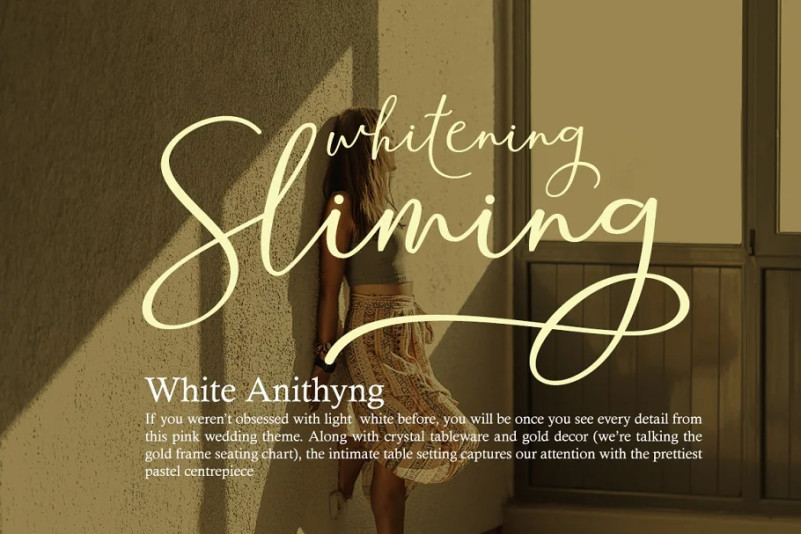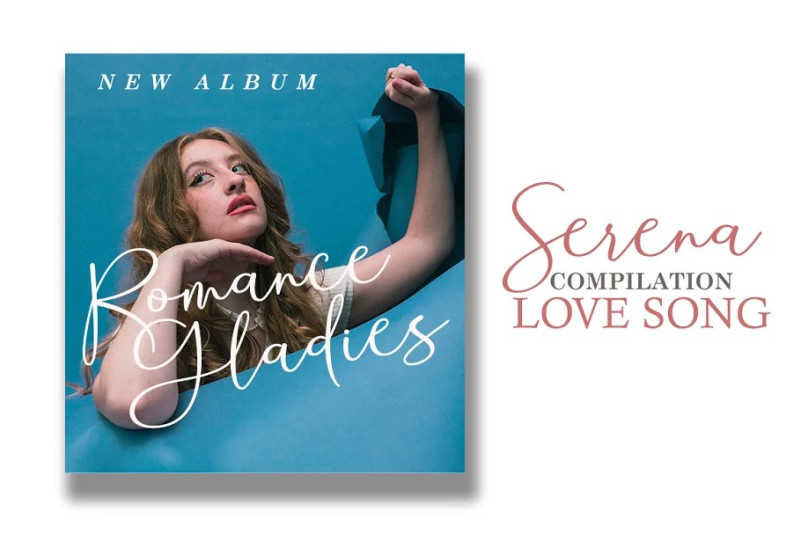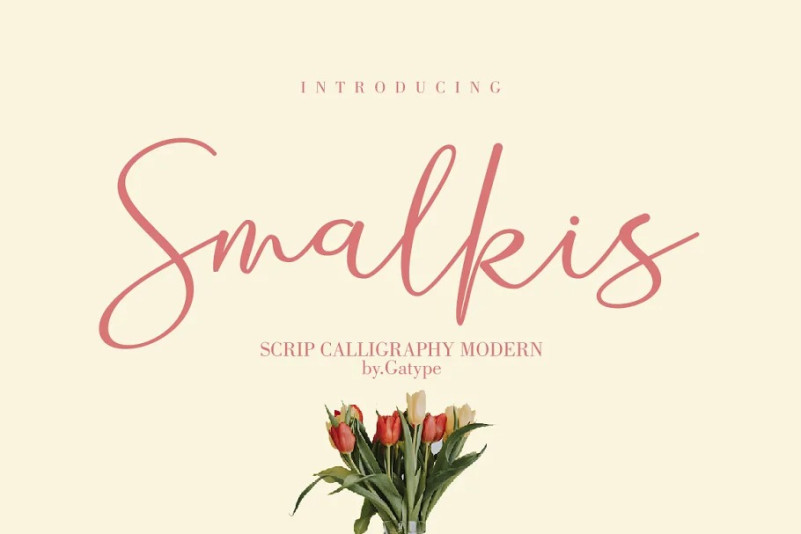
Smalkis Font
Smalkis Script Font, This beautiful script is for those who need elegance and style for their designs and is perfect for wedding invitations, save the date cards and feminine branding.
Smalkis includes a full set of Basic Uppercase and Lowercase Characters, Numbers and Punctuation. Also contains ligatures and many stylistic alternatives to perfectly recreate natural calligraphy (check the preview to see all of them)